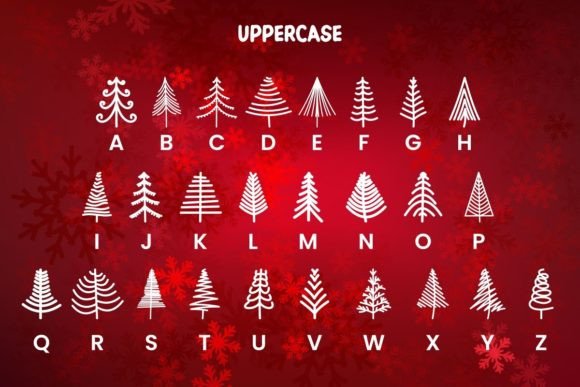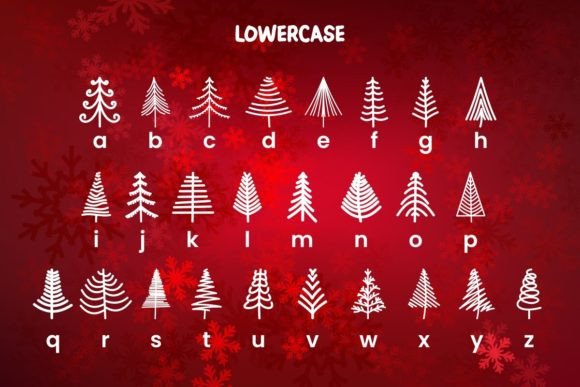
Introduction to Line Tree Font
Line Tree is a cool and fun dingbats font that adds a creative touch to your designs with a winter theme.
Line Tree lets you unleash your creativity and bring your designs to life with its lively and unique doodles .
Key Features of Line Tree Font